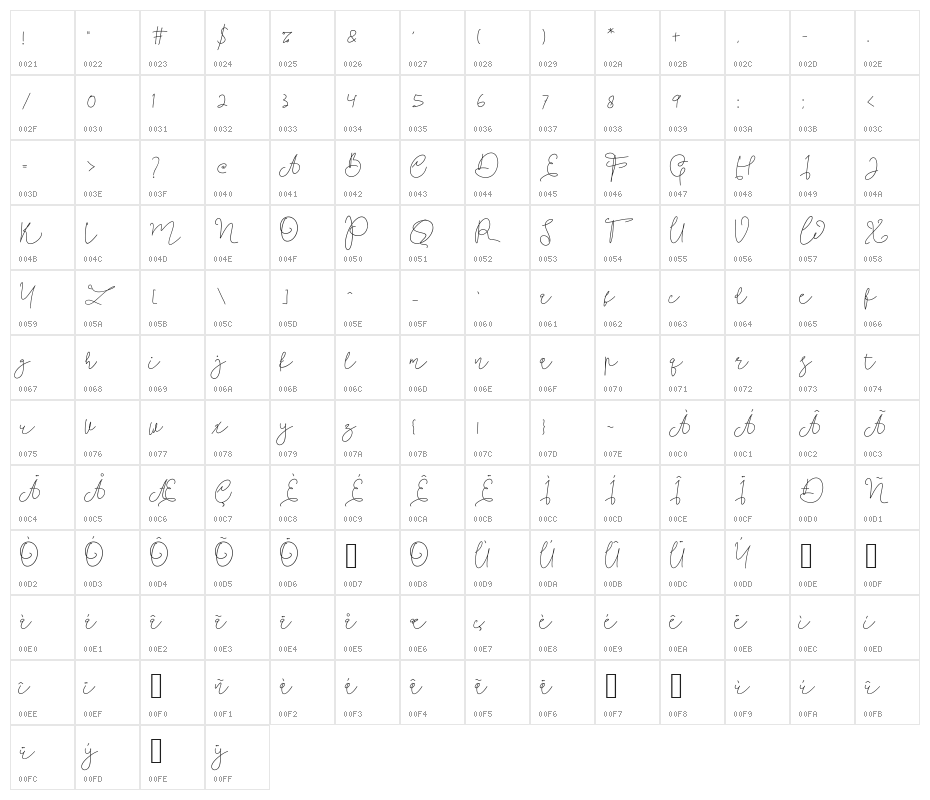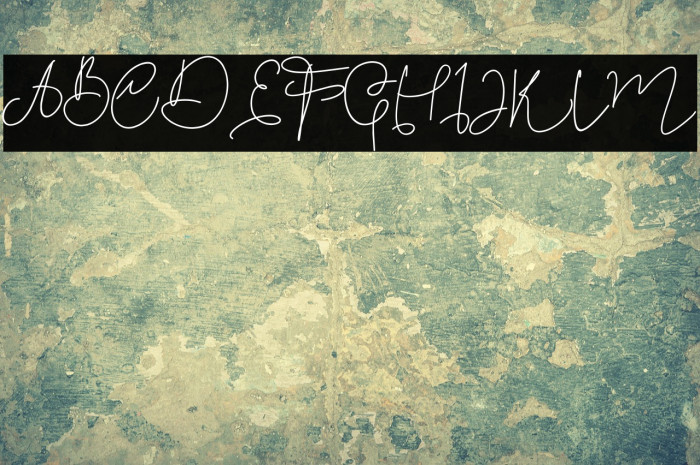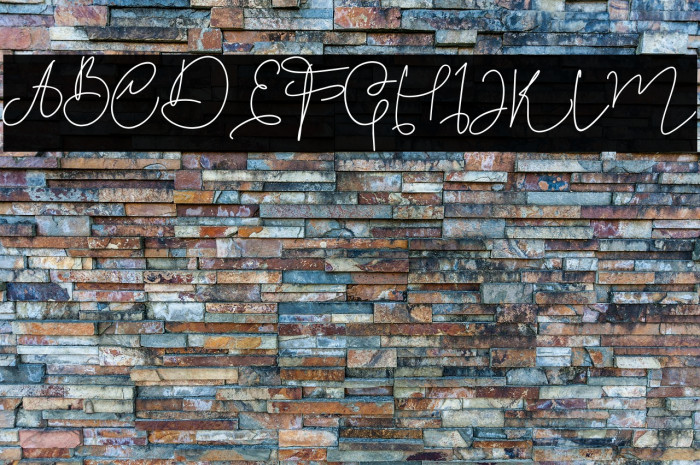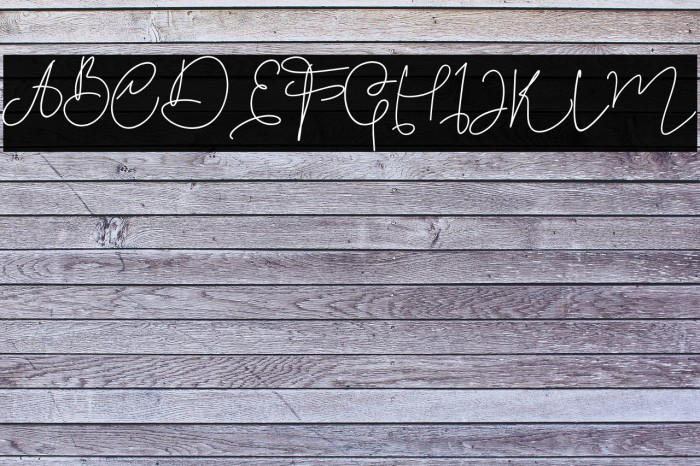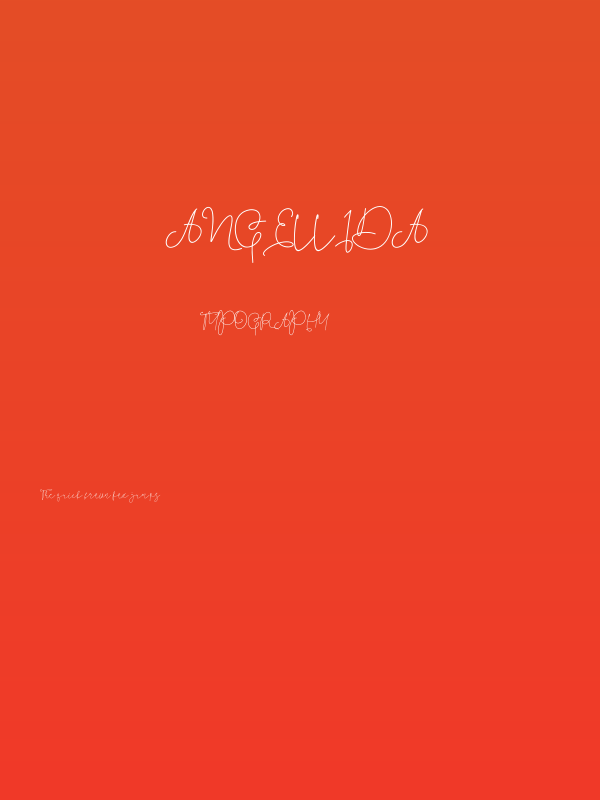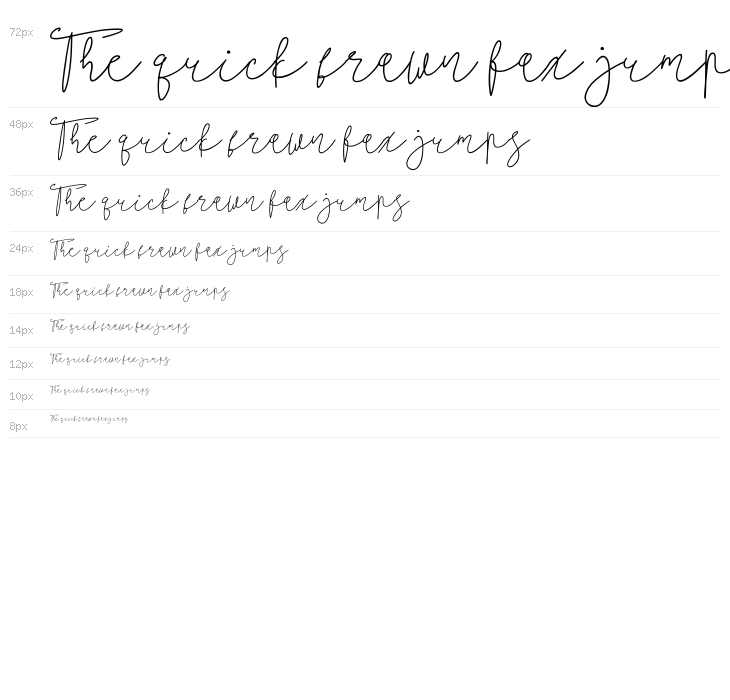
Angellida Font
Angellida Description
This font features an elegant and flowing script style, characterized by its smooth, cursive lines and graceful curves. The uppercase letters are distinct with their intricate loops and swirls, giving a sense of sophistication and fluidity. The lowercase letters maintain a consistent flow, enhancing readability while preserving the artistic flair. Numbers and special characters are designed to complement the overall aesthetic, with a delicate balance between formality and creativity. The font's thin strokes and airy design make it suitable for projects that require a touch of elegance and personal expression.
| Overall Style | Elegant, Decorative |
| Use Case | Logos, Invitations, Personal branding |
| Proposed Projects | Ideal for wedding invitations, greeting cards, personal branding, and elegant logo designs. |